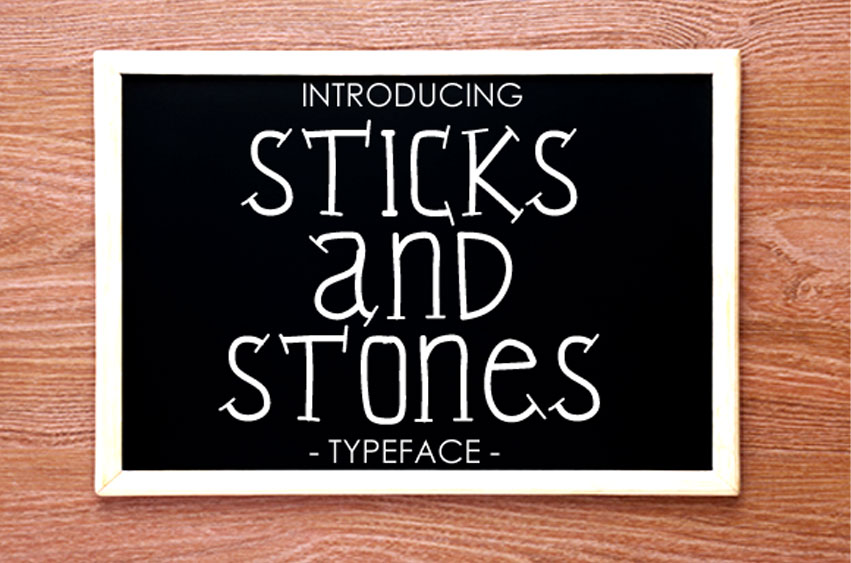
Sticks and Stones Font
Sticks and Stones Font is a cute slab serif font, handwritten in order to give your work a friendly and organic feel.
This font looks great as body text, and can add a bookish quality to your work.